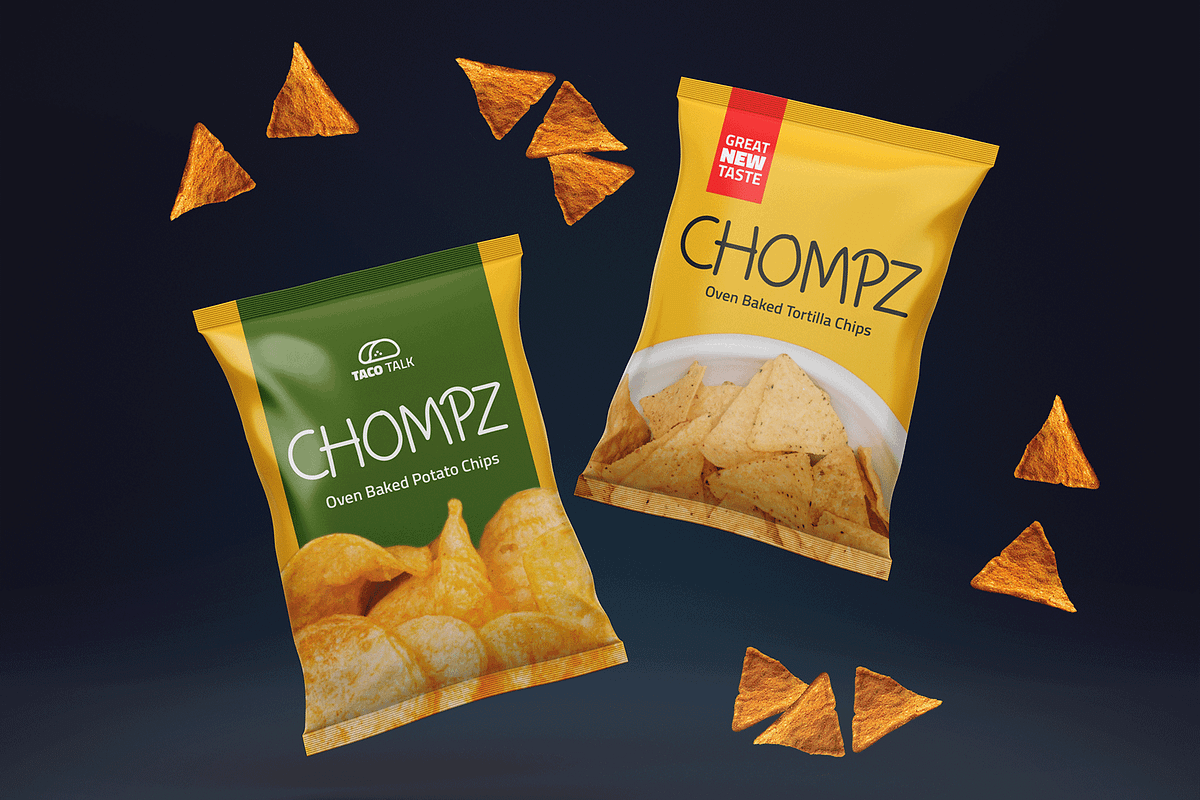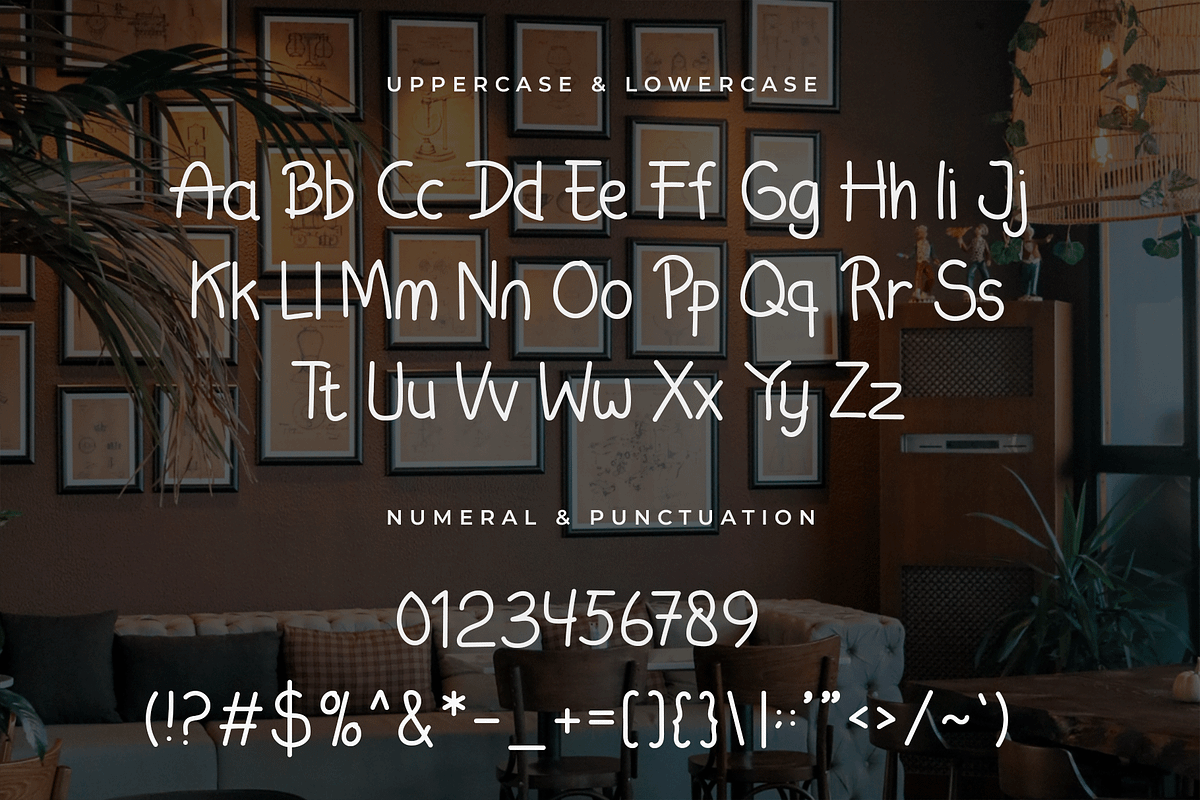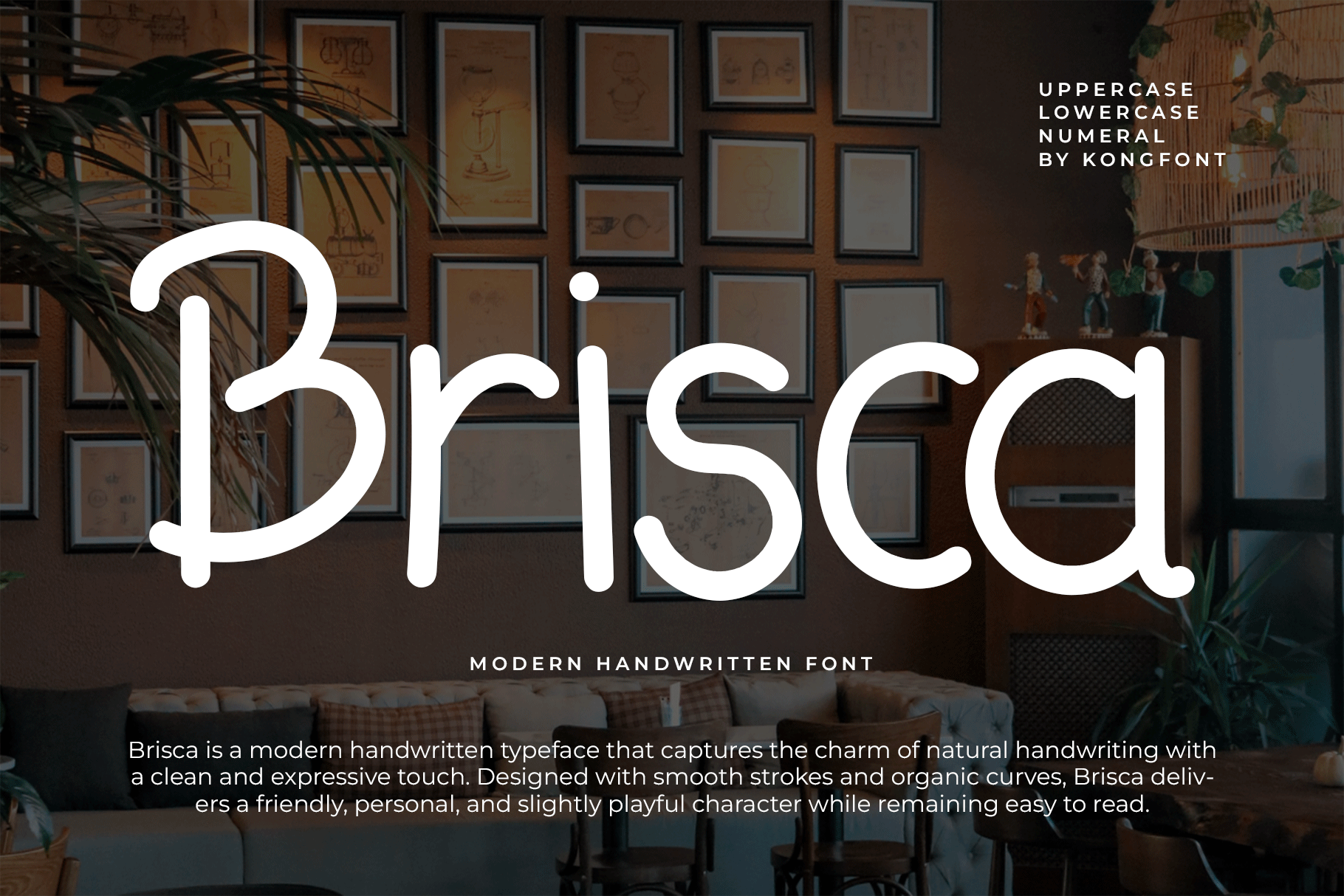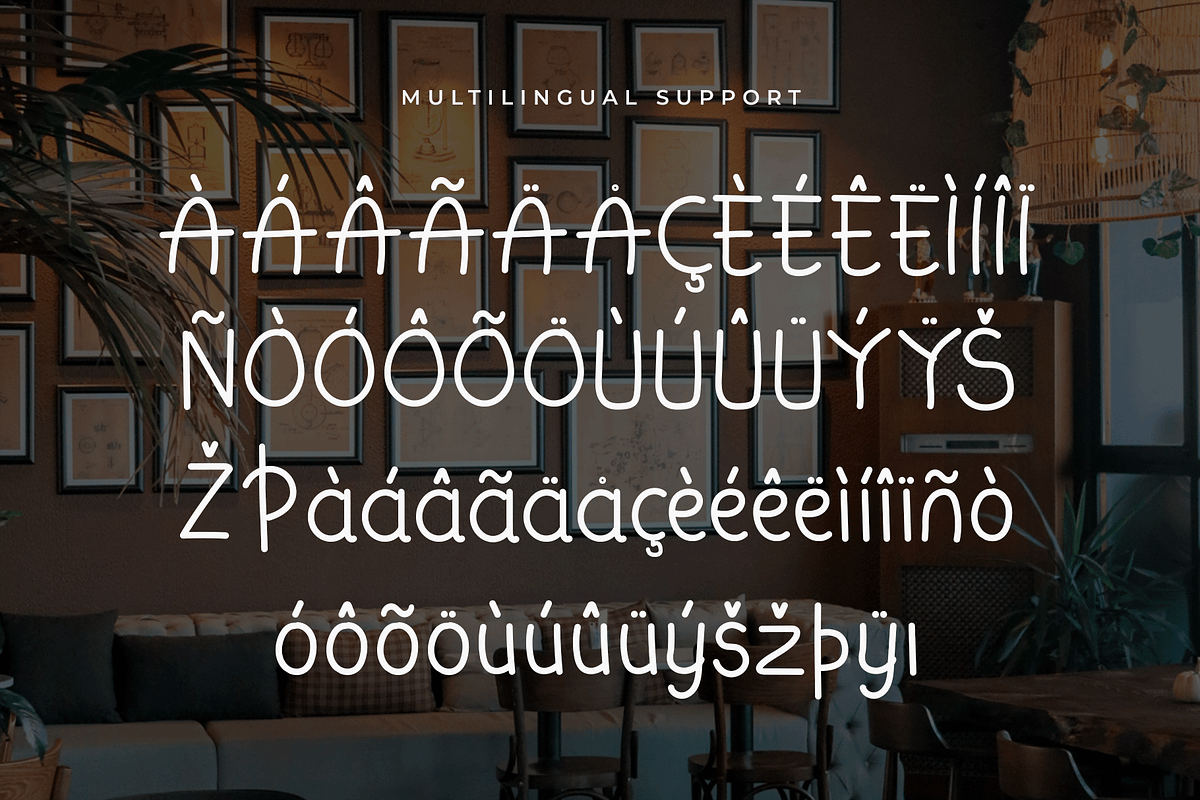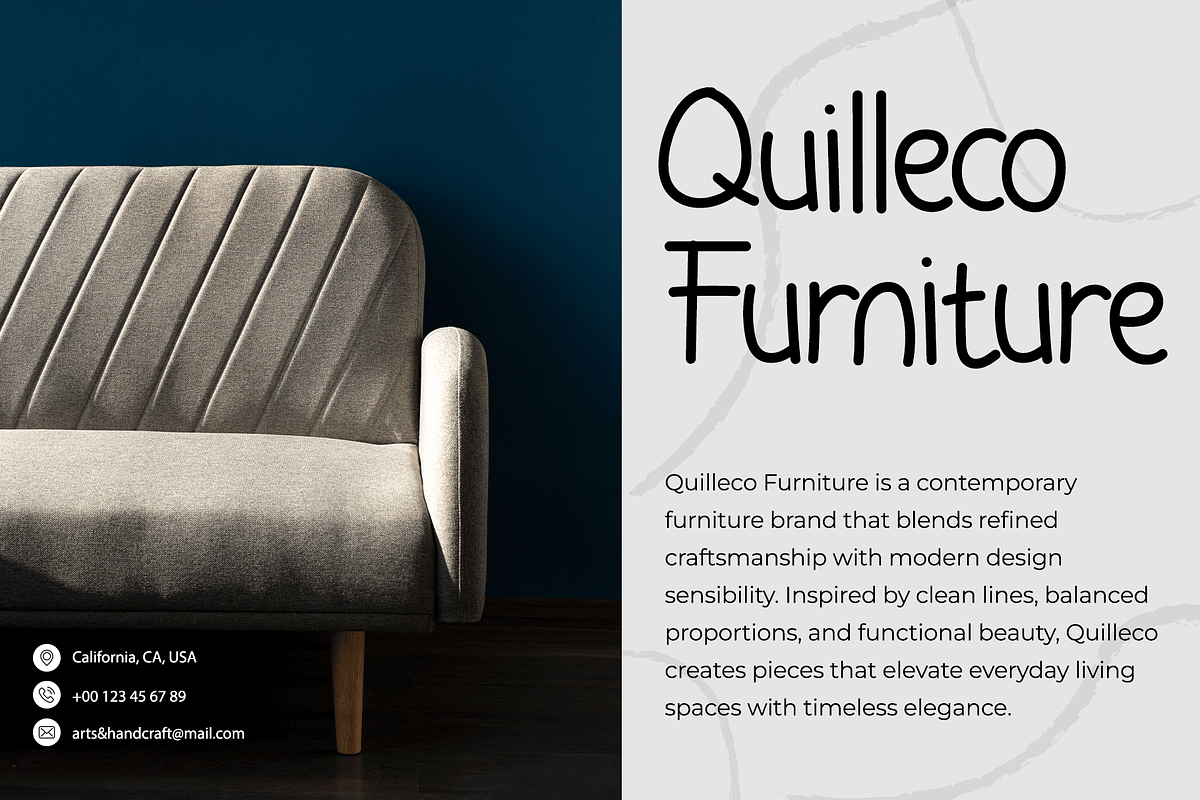
Brisca - Modern Handwritten Font
Introducing Brisca, a modern handwritten font designed to capture the warmth of natural writing with a clean, contemporary feel. With its smooth strokes, organic flow, and relaxed character, Brisca brings authenticity and personality to your designs while staying fresh and stylish.
Brisca includes uppercase and lowercase letters, numerals, punctuation, and multilingual support, ensuring versatility for various design needs. Whether you're crafting a casual brand identity, a heartfelt message, or trendy digital content, Brisca enhances your work with natural charm and modern handwriting style.